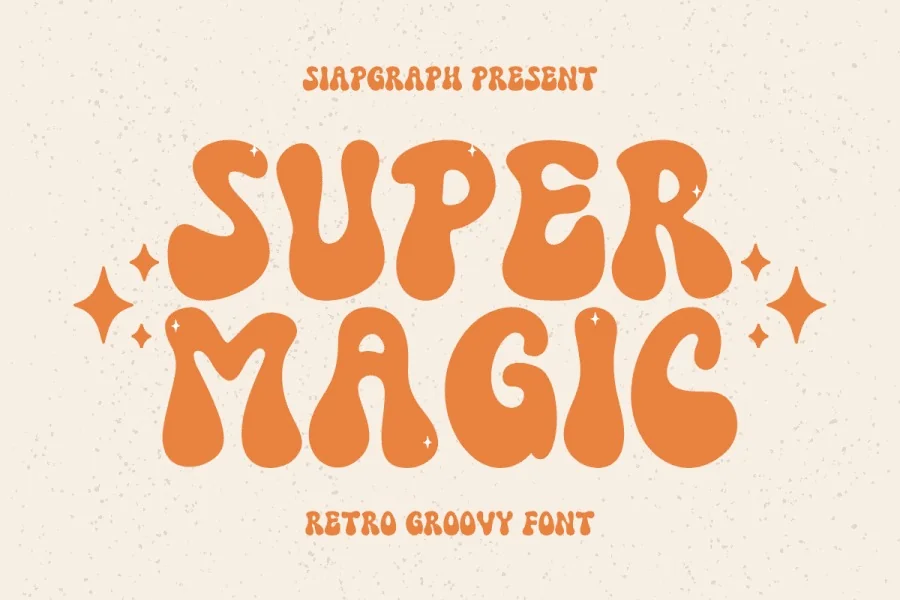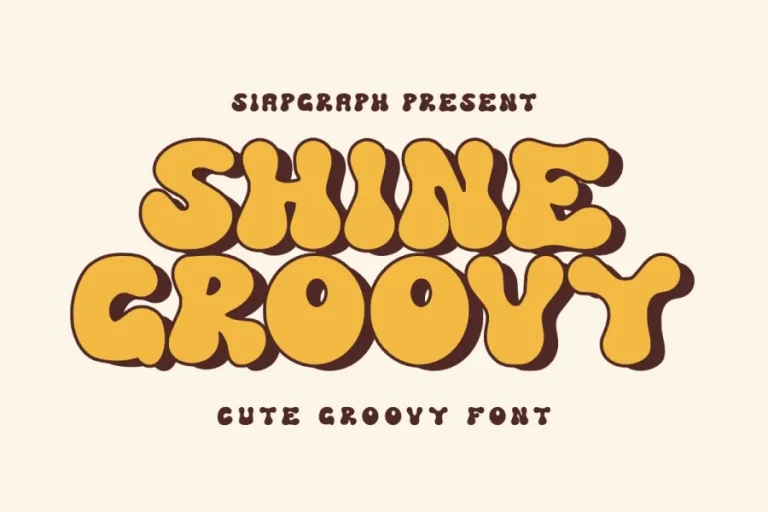
Groovy Font Styles That Bring Retro Energy to Modern Design
Groovy font style is a fun bold retro that is nostalgic and new at the same time. This style is popular among designers as it gives words a personality and movement. Groovy font gained popularity in the 1960s and 1970s when art music and culture was loud, expressive as well as colorful. This type of font has been revived in a contemporary fashion today. It is apt at branding album covers websites and social media images.
The grace of groovy font consists in curves flow and rhythm. Every letter usually is alive. The figures are also gentle and assertive. Employed properly this style makes content friendly and creative. Groovy font is popular among many designers when they intend to bring happiness or a cool atmosphere.
In this paper, the author will delve into the groovy font world. You will find out what is its origin and how it is used nowadays and why it is so popular. You will also find a lot of over fifty groovy font name ideas that can prompt your next project.
The Origin and Evolution of Groovy Font
The history of groovy font is closely related to the counterculture age. In the late 1960s individuals denounced the strict design principles. Artists began working with heavy letters having curves and wavy edges. These fonts were suitable to the fashion and social movements that existed in the music posters.
The font styles in Groovy are usually thick and rounded. They even extend or curve to bring movement. This suited them better to posters and album covers. Gradually the designers perfected these styles and changed them to fit the digital screens.
In the contemporary times groovy font has developed. The retro blends with clean space and smooth contours. That allows the font to be used in websites logos and branding. The freedom spirit is not lost and the execution is more refined.
The groovy font is currently employed by numerous brands to show their creativity, friendliness, and originality. It assists companies to shine in a competitive online environment. It also appeals emotionally to those that like looking back and making bold design decisions.
Why Groovy Font Remains Popular Today
Groovy font continues to be popular as it is human. It does not appear chilly or mechanical. The lines are organic and welcoming. This would increase the likelihood of people to interact with the content.
The other cause is versatility. Groovy font is applicable in most industries. It is commonly used by fashion music wellness and lifestyle brands. Even technology startups occasionally include a groovy font in contrast and warmth.
There is also the role of social media. Extraordinary typography works in scroll feeds. And groovy font catches the eye. It is good with headlines and promotional graphics.
It is also a favorite experimentation by designers. Depending on the design you can make it playful bold elegant or quirky. Such versatility makes groovy font applicable to trends and generations.
Popular Uses of Groovy Font in Modern Design
Groovy font is used in numerous artistic works. It is commonly used to articulate personality in logos. It helps clothing brands to feel youthful and expressive. It is used in event posters to make them exciting and moving.
Groovy font is used by web designers in the hero text and banners. It introduces warmth and emotion to the spaces of the digital world. It is also applied in thumbnails and social posts by content creators to shine.
Groovy font also serves the purpose of packaging design. Products are touchable artistic and friendly. This assists in supporting emotional relationships with customers.
Even the educational and creative blogs adopt the groovy font as the headings. It makes the reading process more entertaining and informal. The rhythmic look of the visuals keeps the reader entertained.
List of Popular Groovy Font Names
Here are over fifty groovy font name ideas that designers often explore for creative projects.
Groovy Vibes
Retro Wave
Funky Town
Psychedelic Flow
Disco Dream
Hippie Soul
Funky Pop
Cosmic Groove
Flower Power
Groove Beat
Magic Retro
Sunny Vibes
Bold Bloom
Twist Pop
Peace Love
Funky Charm
Retro Star
Groove Script
Wild Curve
Dreamy Loop
Vintage Funk
Soft Groove
Groove Spirit
Neon Twist
Groove City
Happy Vibe
Retro Flow
Funky Script
Cosmic Pop
Smooth Wave
Groovy Mood
Sunshine Funk
Groove Line
Chill Retro
Bold Groove
Magic Wave
Pop Funk
Retro Swing
Groove Pulse
Happy Retro
Twist Groove
Vibe Flow
Funky Motion
Groove Beatnik
Psychedelic Joy
Urban Groove
Flower Funk
Cosmic Curl
Retro Vibe
These names reflect the fun expressive nature of groovy font styles and can inspire creative projects across many fields.
How to Choose the Right Groovy Font
Where can I use groovy font?
You can use groovy font for logos posters social media graphics websites and creative branding
Is groovy font good for professional design?
Yes when used correctly groovy font adds personality and warmth without losing clarity
Can groovy font be used for digital content?
Yes groovy font works well for digital content especially headlines and visual elements
Why is groovy font popular again?
Groovy font is popular because it brings nostalgia creativity and human warmth to modern design